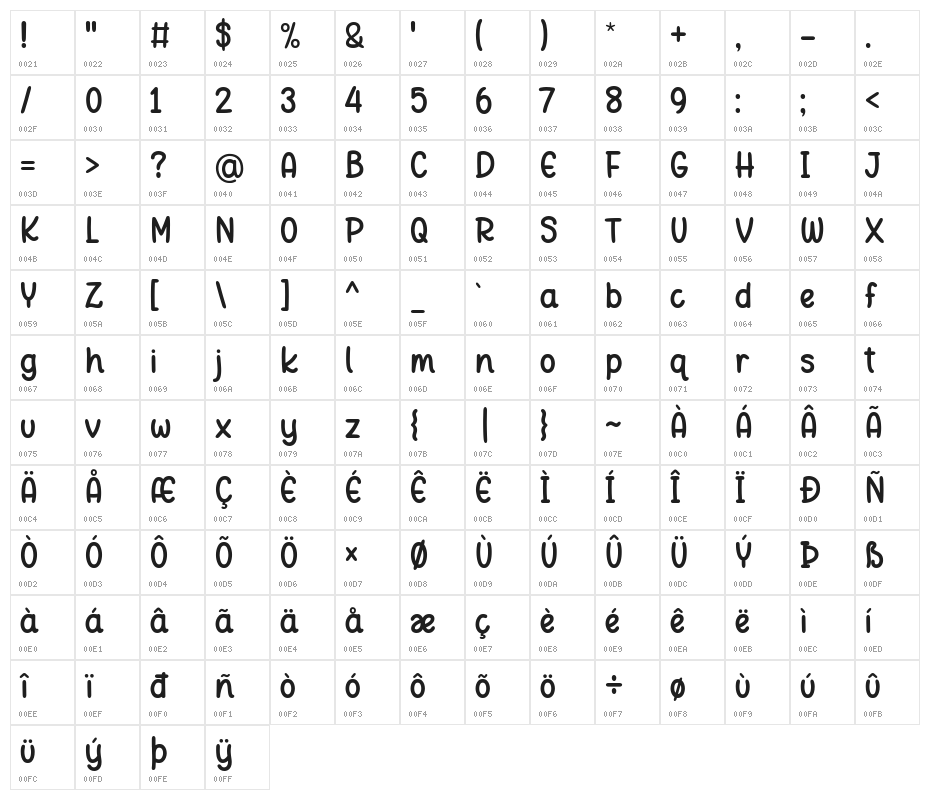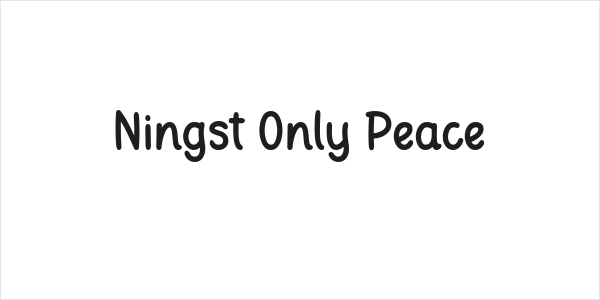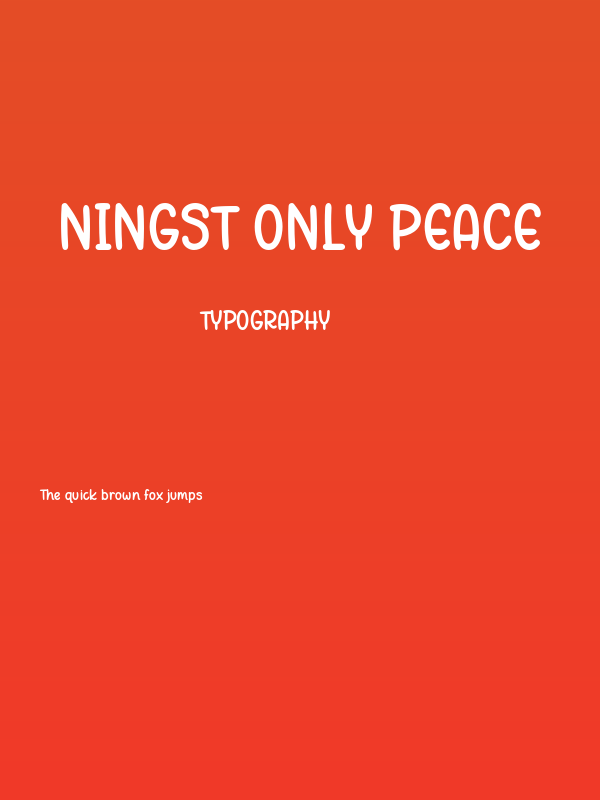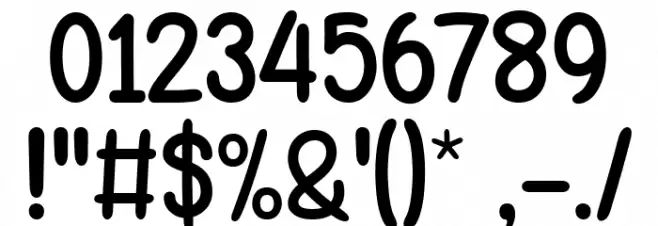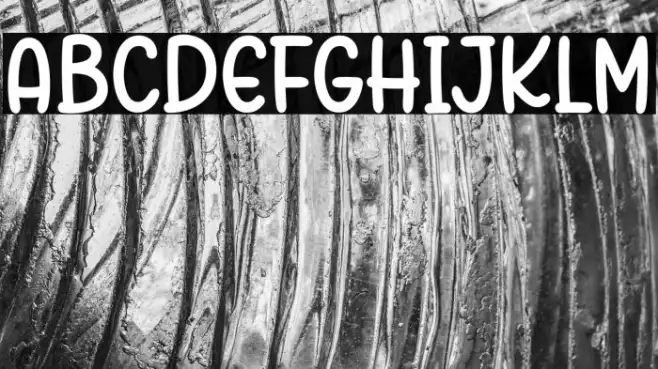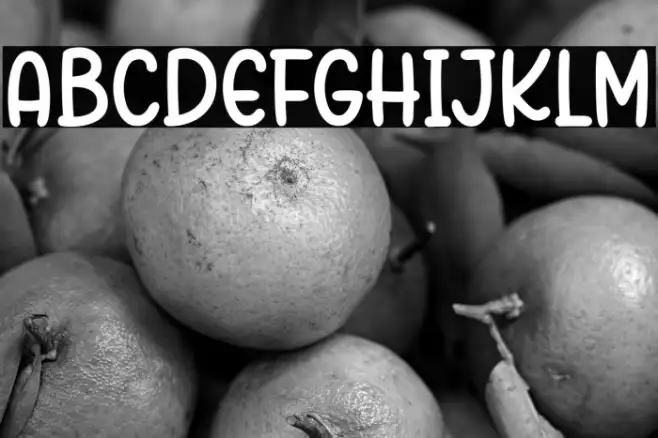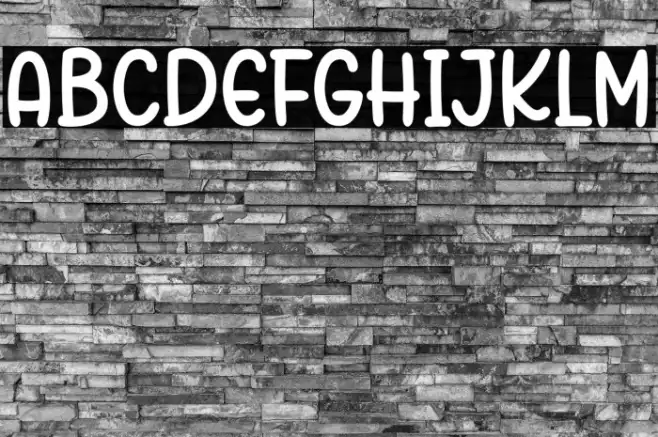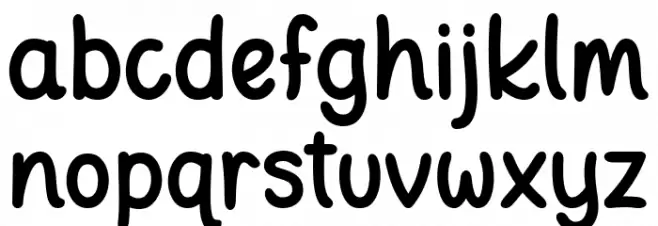
Ningst Only Peace Font
Ningst Only Peace Description
A playful, handwritten font with rounded edges and a casual style.
| Proposed Projects | Children's books, casual invitations, playful branding. |